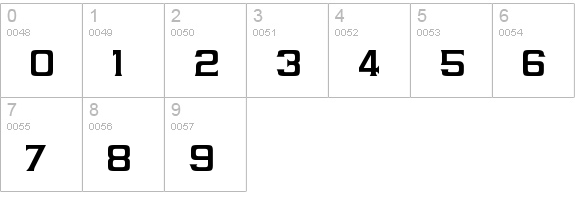
Vibrocentric Bold Font Details
Vibrocentric Bold is a strong, high-contrast variant in the Vibrocentric typeface family \xE2\x80\x94 well suited to headlines, attention-grabbing titles, and strong calls-to-action.
Vibrocentric Bold is a captivating and dynamic font that exudes a strong sense of energy and vibrancy. With its bold and striking letterforms, this font commands attention and leaves a lasting impression. Designed with meticulous precision, Vibrocentric Bold is perfect for making a statement in various design projects, from eye-catching headlines to impactful logos. Its unique combination of sharp angles and smooth curves adds a touch of modernity and sophistication to any composition. What sets Vibrocentric Bold apart is not just its impressive aesthetics, but also its versatility. This font effortlessly transitions from bold and assertive to sleek and elegant, making it suitable for a wide range of design styles and purposes. One of the best features of Vibrocentric Bold is that it is freely available to download at FontsMarket.com. This means that designers and creatives can easily access this exceptional font without any cost, making it a valuable resource for both personal and commercial projects. Whether you are creating a poster, a website, or any other design that demands attention, Vibrocentric Bold is the perfect choice to make your message stand out. Its bold presence and unique character will captivate your audience and leave a lasting impression. Download Vibrocentric Bold today and unleash its power in your creative endeavors.